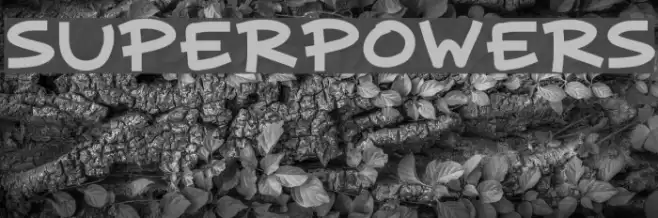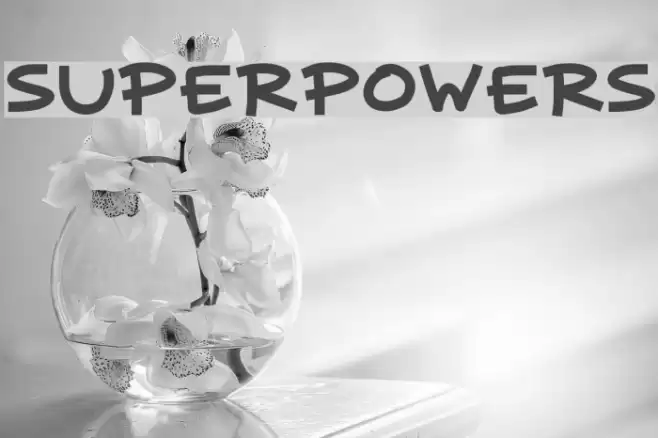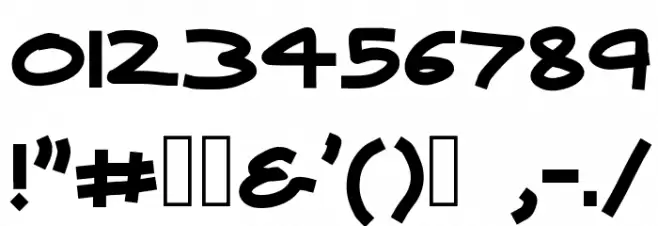
superpowers Font
superpowers Description
This font features a playful and bold design, characterized by its thick strokes and slightly irregular shapes, giving it a hand-drawn, comic-like appearance. The letters are slightly tilted, adding to the dynamic and energetic feel. The uppercase and lowercase letters maintain a consistent style, with rounded edges and a casual, informal look. The numbers and special characters follow the same playful theme, making the font suitable for creative and fun projects. Its boldness ensures high readability, while the unique style adds a distinctive touch.
A playful, bold font with a comic-like, hand-drawn appearance from Uncategorized fonts.
- Proposed Projects: Ideal for comic books, children's books, playful branding, and posters.
- Overall Style: Playful, Comic